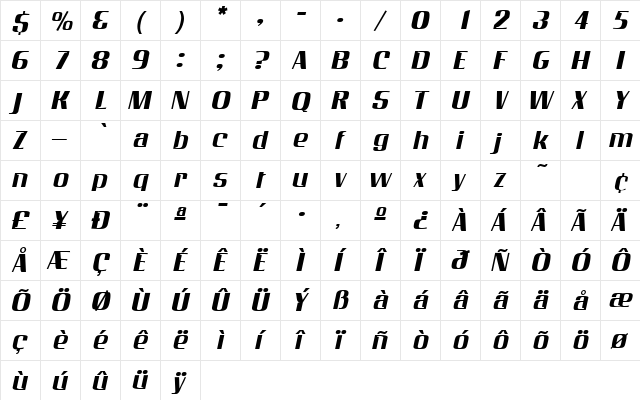
Galaxy Oblique
Design Context for Galaxy Typeface
Galaxy is a composed and adaptable typeface that performs quietly and consistently across a wide range of design contexts. The slanted form adds forward momentum and visual energy.
Pro Tip: Try Galaxy for annotation and caption copy alongside an upright companion — the contrast in angle creates a dynamic but ordered typographic system.